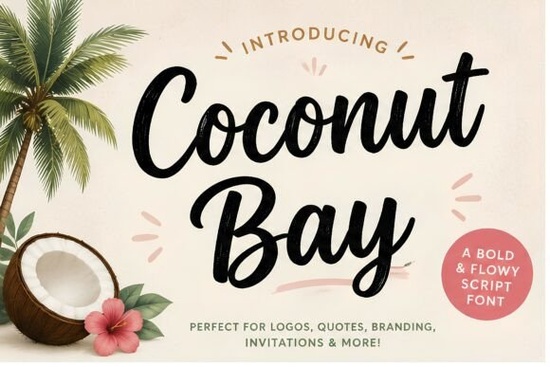
If you’ve been searching for a script font that captures the laid-back joy of summer days and ocean breezes, Coconut Bay Font might be exactly what your next project needs. Designed with smooth brush strokes and gentle curves, it brings a relaxed, tropical energy to everything from t-shirt designs to wedding invitations without feeling overly stylized or hard to read.
Unlike rigid display fonts, Coconut Bay leans into the natural flow of handwritten lettering. That makes it especially useful for designers and small business owners who want to add personality without sacrificing clarity. Whether you're creating beach-themed merch, social media posts for a coastal café, or custom vacation invites, this font adds warmth and approachability in one clean package.
What kinds of projects work best with Coconut Bay?
Because of its cheerful yet legible style, Coconut Bay shines in contexts where friendliness matters more than formality. Think:
- Summer event flyers or digital ads
- Beach wedding stationery (menus, place cards, signage)
- Tote bags, mugs, or apparel with coastal slogans
- Social media quotes or Instagram story overlays
- Logo mockups for surf shops, ice cream stands, or travel blogs
It’s also worth noting that Coconut Bay pairs well with clean sans-serif fonts for contrast try using it for headlines while keeping body text simple and readable.
How does it compare to other handwritten script fonts?
If you’ve browsed Creative Fabrica’s script collection, you’ve probably come across options like Honeymoon Handwriting, which leans romantic and delicate, or Better Together, known for its connected, flowing baseline ideal for love-themed designs. Coconut Bay stands apart by focusing on upbeat, casual vibes rather than elegance or intimacy.
For those who prefer a slightly more structured script, Aureline offers refined loops and consistent spacing great for luxury branding but lacks the playful bounce Coconut Bay delivers. Meanwhile, Sometimes gives off a nostalgic, journal-like feel, perfect for storytelling but less suited for bold promotional graphics.
In short: if your goal is to evoke sunshine, sand, and good times not candlelit dinners or vintage postcards Coconut Bay fits the mood better than most.
Is Coconut Bay easy to use for beginners?
Yes. The font file includes standard characters plus common ligatures and alternates, so even crafters new to design software can drop it into Canva, Photoshop, or Illustrator and get great results right away. You don’t need advanced typography skills to make it look intentional.
That said, if you’re working on print-on-demand products (like T-shirts or stickers), always test how the thinner strokes appear at small sizes. While Coconut Bay is bold overall, some swashes may blur on low-resolution prints. A quick mockup preview usually solves this.
Tips for getting the most out of this font
Here are a few practical ideas to help your designs stand out:
- Use color wisely: Pair Coconut Bay with warm neutrals (sand, coral, seafoam) instead of stark black it enhances the tropical mood.
- Avoid overcrowding: Give the letters room to breathe. This font works best when it’s the focal point, not buried in dense text blocks.
- Mix case intentionally: Try all caps for bold signage or title case for a more natural handwritten effect both work, depending on context.
- Layer with textures: Overlay subtle paper grain or watercolor backgrounds to amplify the handcrafted feel.
Remember, the goal isn’t just to use a trendy font it’s to communicate a feeling. Coconut Bay does that by sounding like laughter on a sunny dock, not a corporate memo.
Before you download, ask yourself:
- Does my audience respond to casual, joyful visuals?
- Am I designing something seasonal or location-specific (e.g., summer sale, beach resort)?
- Do I need a font that’s both distinctive and readable at a glance?
Next step: Open your current design file and try swapping in Coconut Bay for your headline text. See how it changes the tone. If it feels instantly friendlier and more inviting, you’ve found your match.